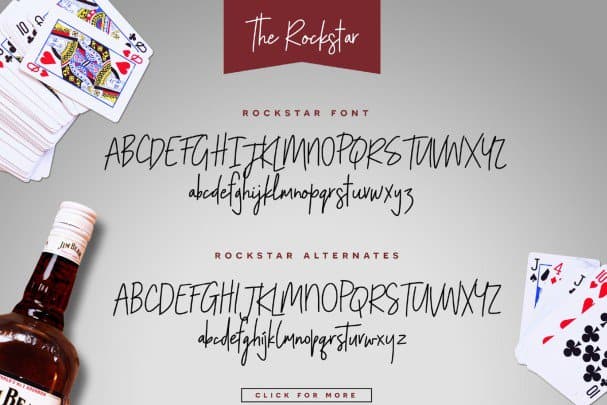
The Rockstar Duo Font
The Rockstar Duo Font is considered one of the most trendy fonts ever and is reminiscent of the thunderstorm font. Recognized for its copy and paste capabilities, this font is a handwritten typeface.
Style Of The Rockstar Duo Font Free